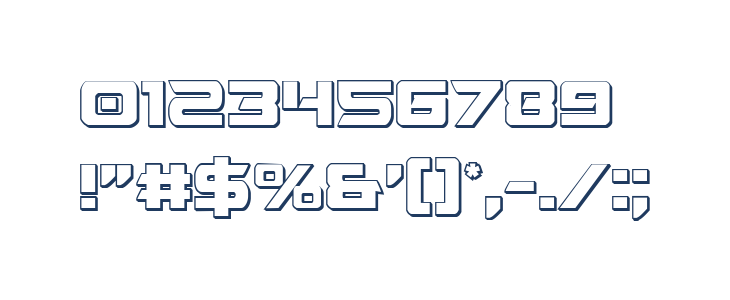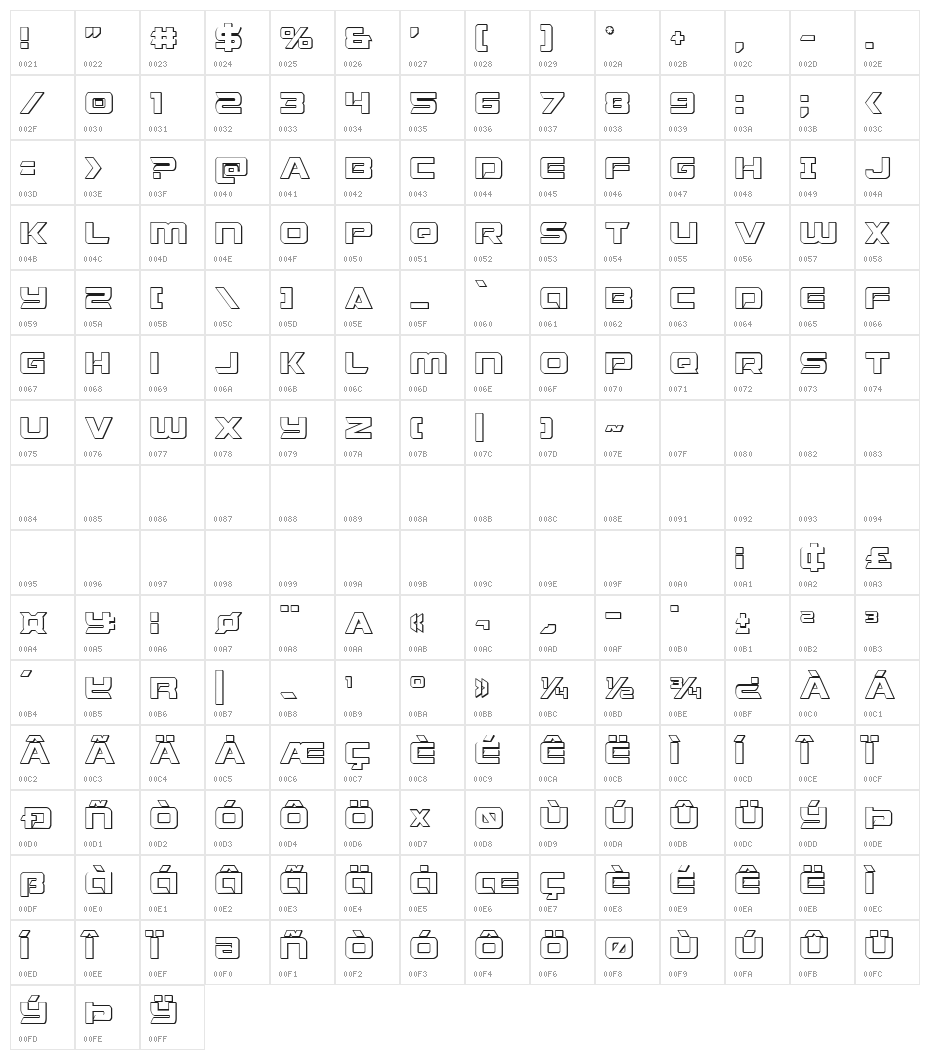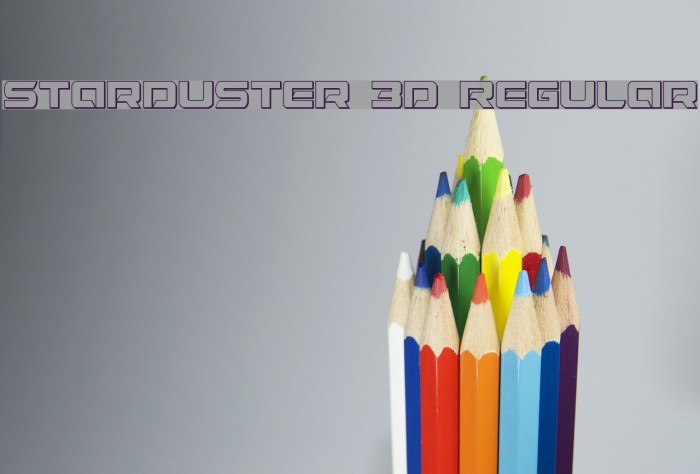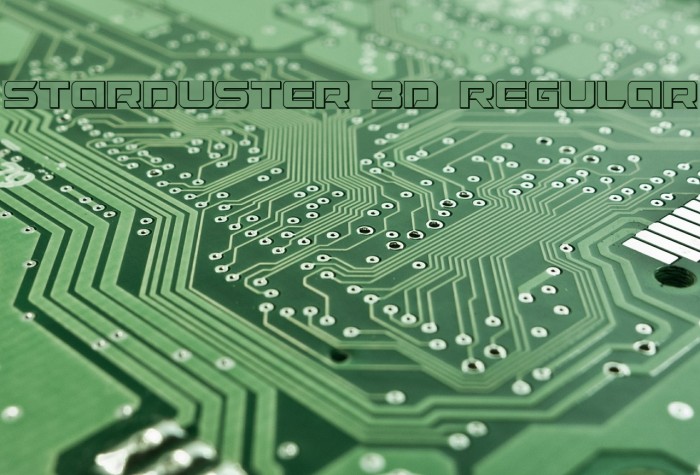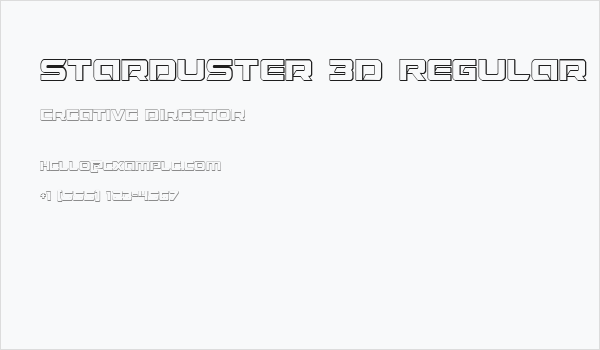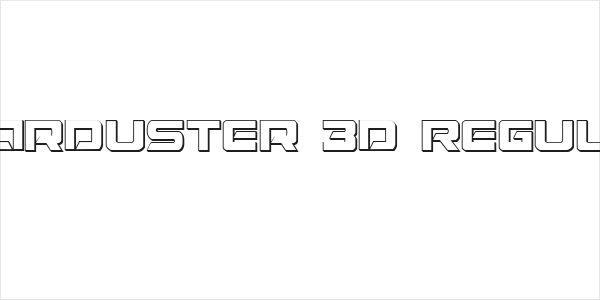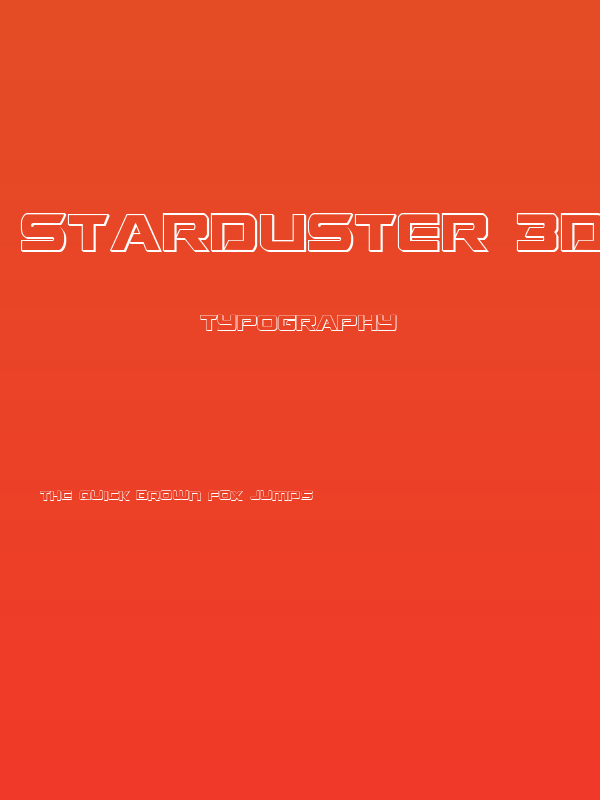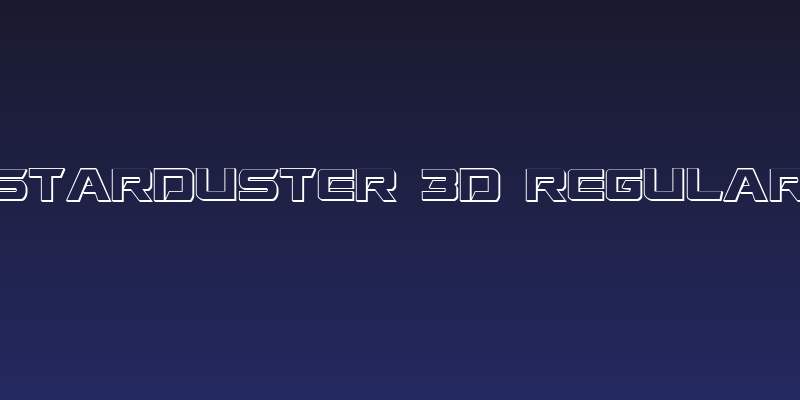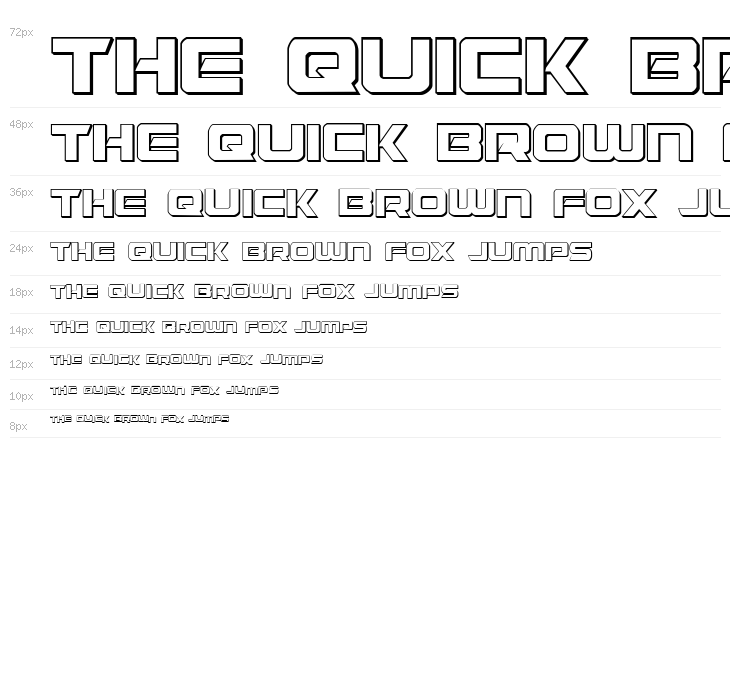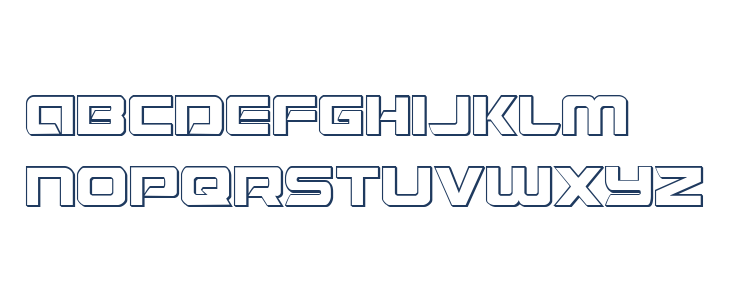
Starduster 3D Regular Font
Starduster 3D Regular Description
This font features a bold, three-dimensional design that gives each character a distinct, futuristic appearance. The letters are outlined with a shadow effect, creating a sense of depth and dimension. The geometric shapes are consistent throughout, with sharp angles and clean lines that enhance its modern aesthetic. The uppercase and lowercase letters maintain a uniform style, while the numerals and special characters complement the overall design. This font is ideal for projects that require a standout, eye-catching typeface.
| Proposed Projects | Ideal for sci-fi themed designs, video game titles, posters, and branding that requires a modern and dynamic look. |